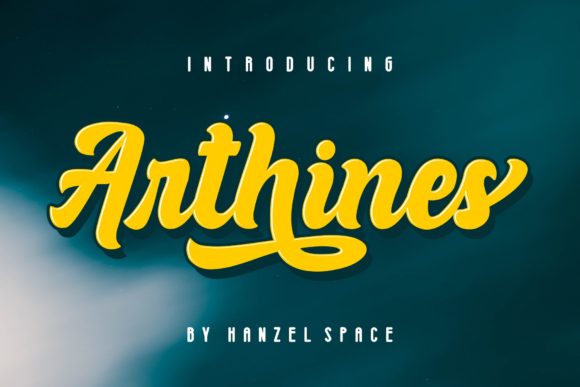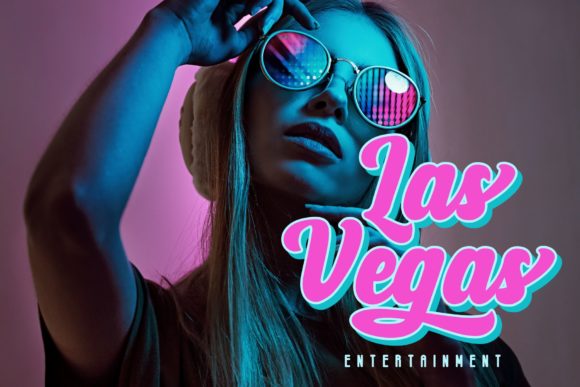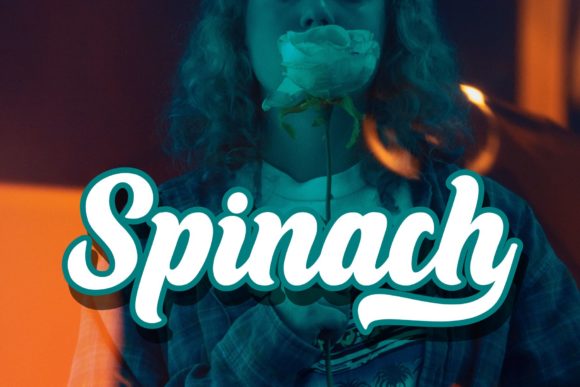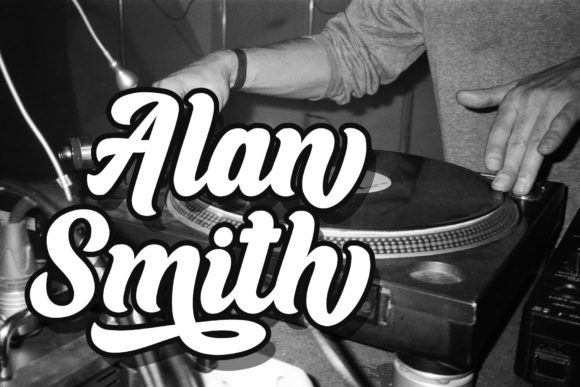
About Arthines Font
Arthines is a stunning and daring handwritten font that is designed to bring a stylish and captivating touch to your headlines and logotype projects. With its strong and confident appearance, this font adds a sense of power and dynamism to your designs.
The unique and distinctive letterforms of Arthines exude a sense of boldness and elegance. The carefully crafted strokes and curves give this font a ravishing and daring aesthetic, making it a perfect choice for projects that require a touch of sophistication and character.
Arthines has a nostalgic charm that adds a timeless appeal to your designs. It evokes a sense of vintage and classic aesthetics, allowing you to create designs with a hint of nostalgia and personality. Whether you’re working on branding, packaging, posters, or any other project, Arthines can infuse your designs with a touch of charm and character.
The strong and confident nature of Arthines makes it ideal for headlines and logotypes. It commands attention and makes a bold statement, ensuring that your message is conveyed with impact and style. The daring and dynamic look of this font adds an element of excitement and energy to your designs, capturing the attention of your audience.
Arthines is crafted with precision and attention to detail, resulting in a font that is not only visually appealing but also highly legible. Its clarity ensures that your headlines and logotypes are easily readable and convey your intended message effectively.
Whether you’re designing for fashion, beauty, lifestyle, or any other industry that requires a stylish and captivating font, Arthines is a great choice. It brings a unique blend of strength, confidence, and nostalgia to your projects, setting them apart and making them truly memorable.
In summary, Arthines is a ravishing and daring handwritten font that adds a stylish touch to your headlines and logotype projects. With its strong and confident appearance, it exudes a sense of power and dynamism. The nostalgic character of Arthines adds a timeless appeal to your designs, while its legibility ensures that your message is effectively communicated. Let Arthines bring an element of sophistication and character to your next design endeavor.